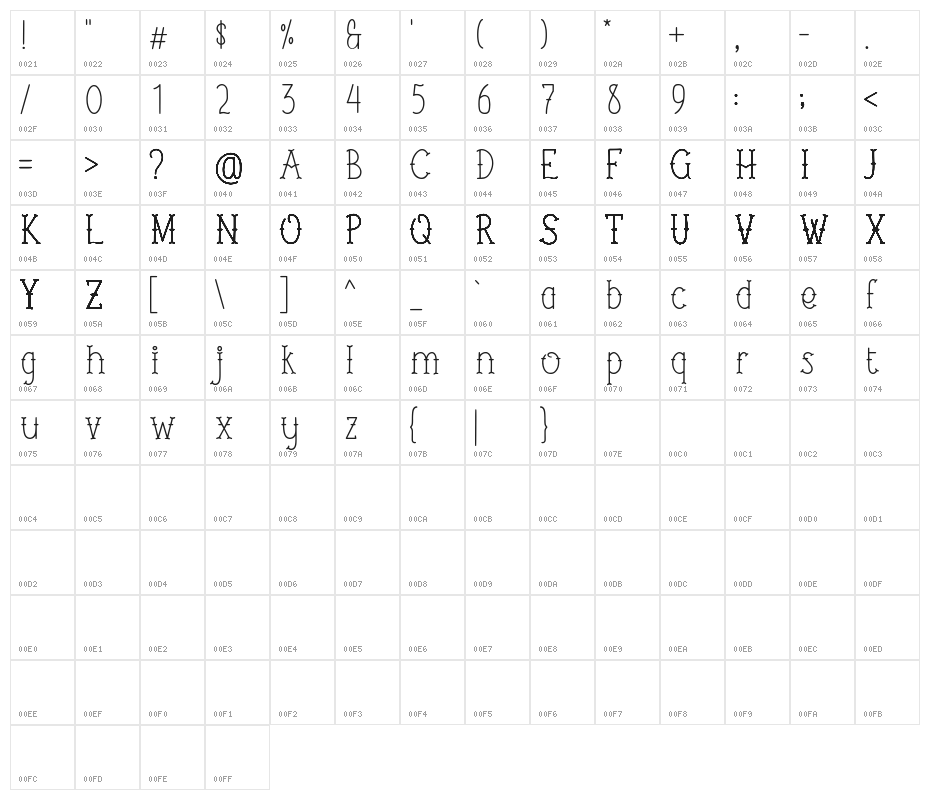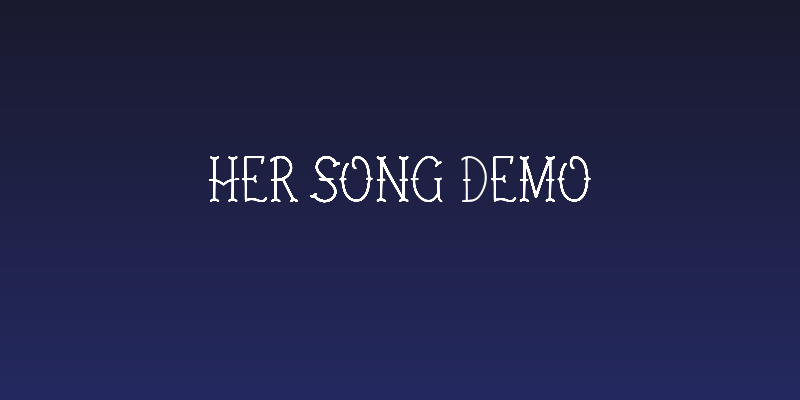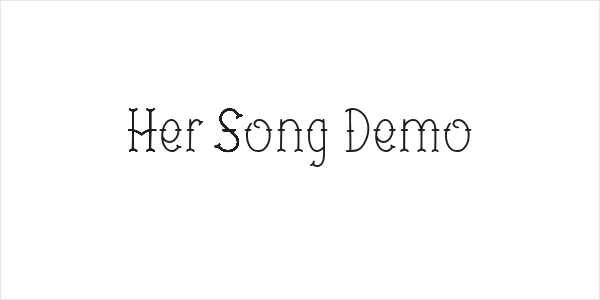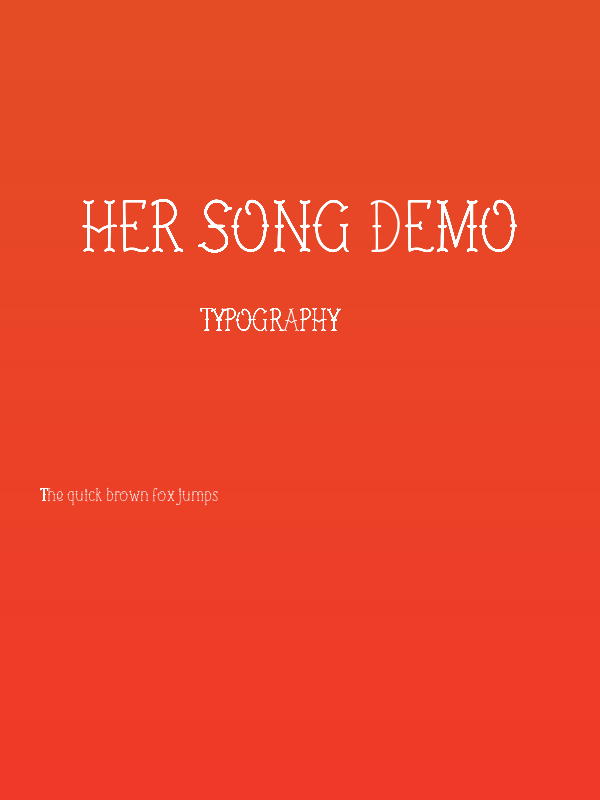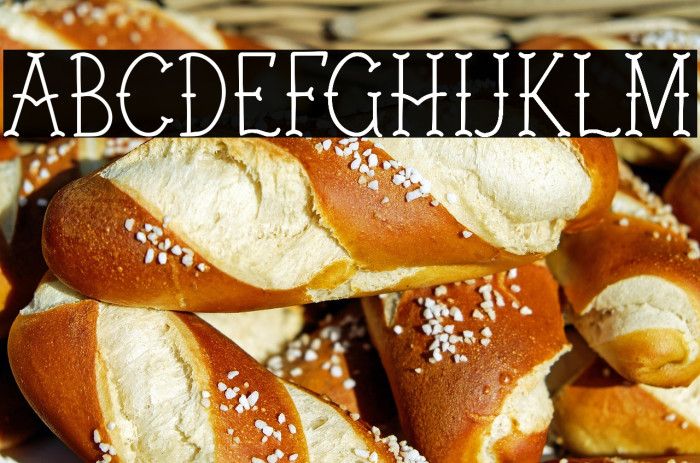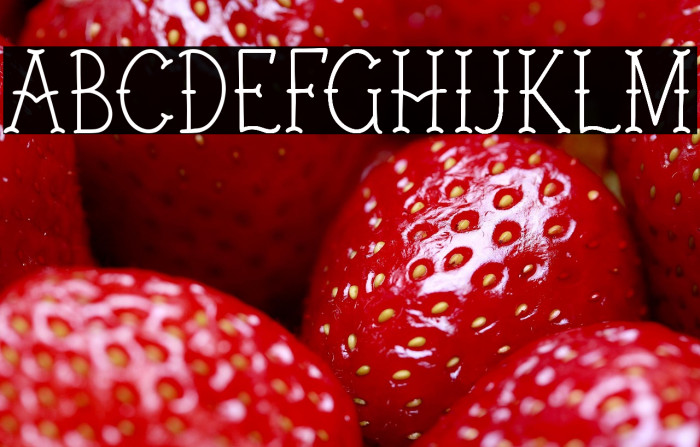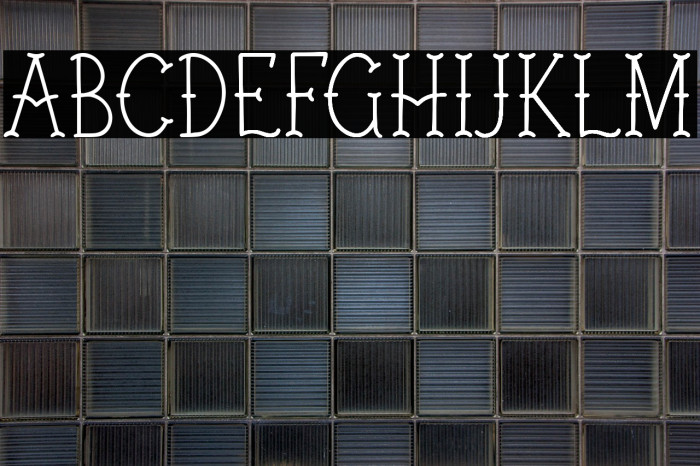
Her Song Demo Font
Her Song Demo Description
This font features a whimsical and playful design with a handwritten feel. The characters are adorned with small decorative elements, such as dots and slight curls, giving it a unique and artistic appearance. The strokes are consistent in thickness, providing a medium contrast that enhances readability while maintaining an artistic flair. The overall style is both modern and decorative, making it suitable for creative projects. The font's character spacing is normal, ensuring clarity and legibility across different sizes. Its distinctive style makes it ideal for projects that require a touch of personality and creativity.
| Proposed Projects | Ideal for greeting cards, children's books, creative posters, and artistic branding. |